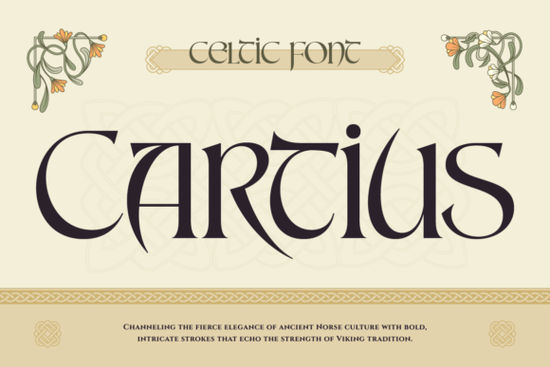
Cartius Font is a striking typeface that brings the essence of ancient Norse and Celtic traditions into modern design. With its bold, intricate strokes, this font captures the spirit of Viking culture and the artistry of medieval craftsmanship. Whether you're working on a project with a historical theme or looking to add a unique touch to your creative work, Cartius Font offers a timeless aesthetic that stands out.
If you're exploring fonts that blend history with visual appeal, Cartius Font is an excellent choice. It's especially well-suited for designers, crafters, and small businesses who want to infuse their work with a sense of legacy and sophistication. The font’s style draws from ancient manuscripts and sacred texts, making it ideal for projects that require a strong cultural or artistic foundation.
One of the standout features of Cartius Font is its versatility. It works well in both digital and print formats, making it a go-to option for everything from logos and branding to book covers and packaging. Its distinct character adds depth and authenticity to any design, helping you create something that feels both original and rooted in tradition.
What Makes Cartius Font Unique?
Cartius Font isn’t just about appearance it carries a story. Inspired by the rich heritage of the 6th and 7th centuries, this font reflects the artistry found in ancient Celtic and Viking cultures. The detailed strokes and structured layout give it a refined yet powerful look, perfect for those who want to convey strength and elegance in their designs.
For creators looking for a font that feels authentic, Cartius Font offers a rare blend of historical inspiration and modern usability. It’s not just a typeface; it’s a tool that can elevate your work with a sense of depth and meaning. Whether you're designing for a fantasy-themed project or aiming for a more traditional feel, this font provides a solid foundation.
Best Uses for Cartius Font
Cartius Font shines in a variety of applications. It’s particularly effective for:
- Historical or fantasy-themed projects – Ideal for books, games, or artwork inspired by medieval or mythical worlds.
- Brand identity and logos – Offers a strong, memorable presence that conveys professionalism and creativity.
- Print-on-demand products – Adds a unique flair to t-shirts, mugs, and other custom items.
- Artistic and decorative text – Perfect for headers, titles, and visual elements that need a bold, elegant look.
Its ability to blend readability with visual impact makes it a popular choice among designers and hobbyists alike. If you're looking for a font that can adapt to different styles while maintaining its distinctive character, Cartius Font is worth considering.
How to Use Cartius Font Effectively
To get the most out of Cartius Font, consider pairing it with complementary typefaces. For example, using it as a headline font alongside a simpler sans-serif can create a balanced and visually appealing design. It also works well when used sparingly, allowing its intricate details to stand out without overwhelming the overall composition.
When working with historical or thematic designs, Cartius Font can help reinforce the mood and message of your project. Whether you're creating content for a blog, a product page, or a personal portfolio, this font adds a layer of authenticity that can make your work more engaging.